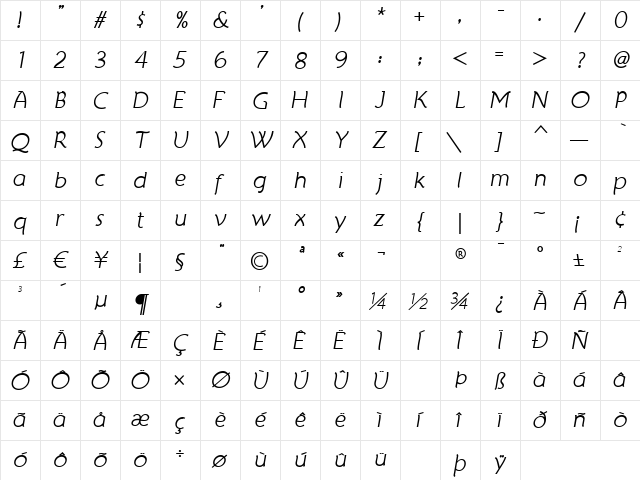
Atelier Sans Book Italic Itc Regular
Design Context for Atelier Sans Book Italic Itc Typeface
Atelier Sans Book Italic Itc takes a measured approach to typography — its balanced proportions and neutral character make it a reliable workhorse for both digital and print work. Its italic angle brings a sense of urgency and motion to the letterforms.
Pro Tip: Try Atelier Sans Book Italic Itc for annotation and caption copy alongside an upright companion — the contrast in angle creates a dynamic but ordered typographic system.